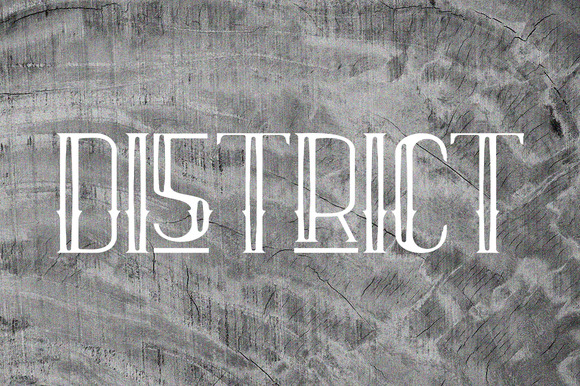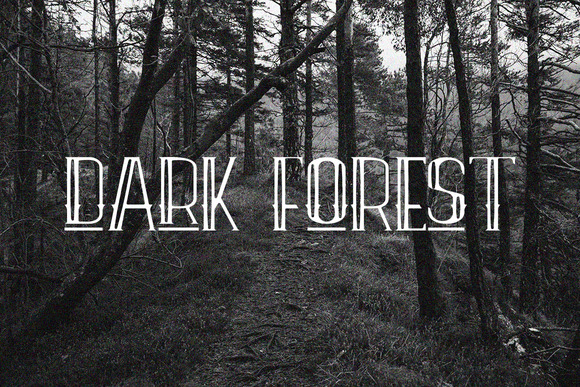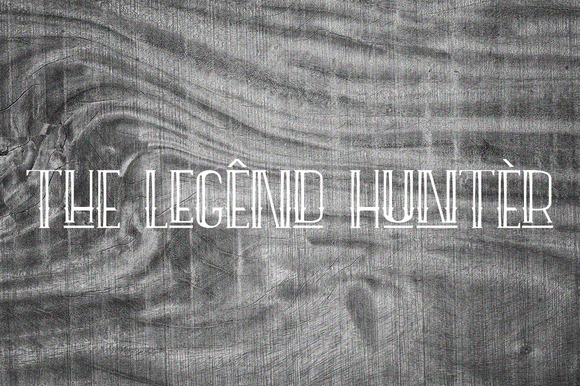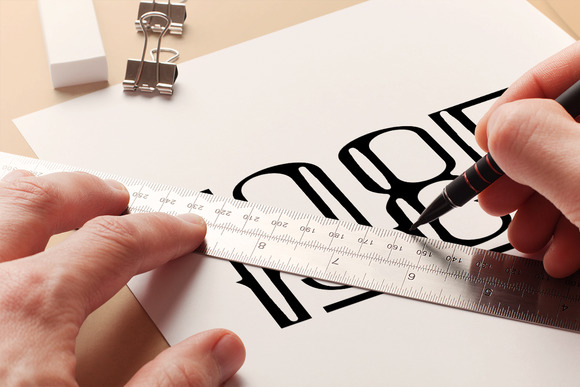
Introducing Elpida Thin Font: Elevate Your Designs with Delicate Elegance
Are you on the hunt for a font that adds a touch of sophistication and elegance to your designs? Look no further than Elpida Thin Font. This stunning outline font is perfect for a variety of decorative display projects, and its thin and delicate features make it an excellent choice for designers and crafters looking to add a dash of style to their work.
The Characteristics of Elpida Thin Font
Elpida Thin Font boasts a range of characteristics that make it an excellent addition to any designer’s toolkit. Its most notable feature is its delicate, thin lines, which give it a light and airy feel. This makes it perfect for use in projects where a subtle, sophisticated look is desired. The font’s outline style also adds a level of versatility, allowing it to be used in a variety of creative applications.
Perfect for Decorative Display Projects
Elpida Thin Font is specifically designed with decorative display projects in mind. Whether you’re working on a logo, a poster, a wedding invitation, or any other type of design that requires a touch of elegance, this font is sure to impress. Its unique outline style and delicate lines make it perfect for use in:
• Logos and branding materials
• Posters and flyers
• Social media graphics and quotes
• Signage and display ads
Why Choose Elpida Thin Font?
So, why should you choose Elpida Thin Font for your next design project? Here are just a few reasons:
• Unique and eye-catching: Elpida Thin Font’s delicate lines and outline style make it a standout choice for designers looking to create unique and eye-catching designs.
• Versatile: The font’s versatility makes it perfect for use in a wide range of design applications, from logos and branding materials to social media graphics and quotes.
• Elegant and sophisticated: Elpida Thin Font adds a touch of elegance and sophistication to any design, making it perfect for projects where a high-end look is desired.
Tips for Using Elpida Thin Font
To get the most out of Elpida Thin Font, here are a few tips to keep in mind:
• Use it sparingly: Due to its delicate nature, Elpida Thin Font works best when used sparingly. Use it as a headline or title font, and pair it with a more robust font for body text.
• Experiment with colors: Elpida Thin Font looks great in a variety of colors, so don’t be afraid to experiment and find the perfect hue for your design.
• Pair it with other fonts: Elpida Thin Font pairs well with a range of other fonts, so try combining it with other fonts to create a unique and visually appealing design.
Elpida Thin Font is a stunning outline font that is perfect for designers and crafters looking to add a touch of elegance and sophistication to their designs. Its delicate lines and outline style make it a versatile choice for a wide range of decorative display projects, and its unique and eye-catching features make it sure to impress. Whether you’re working on a logo, a poster, or any other type of design, Elpida Thin Font is an excellent choice.